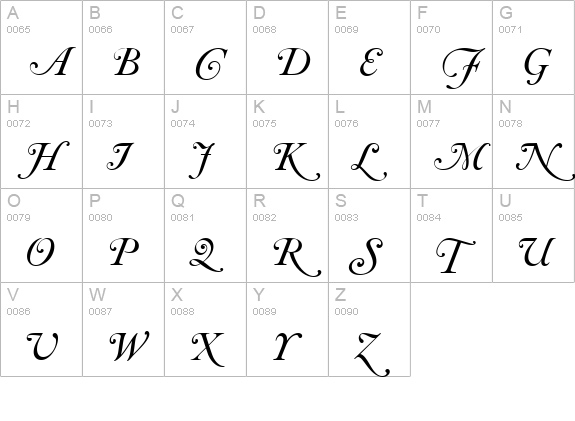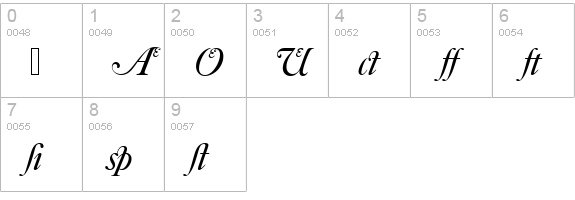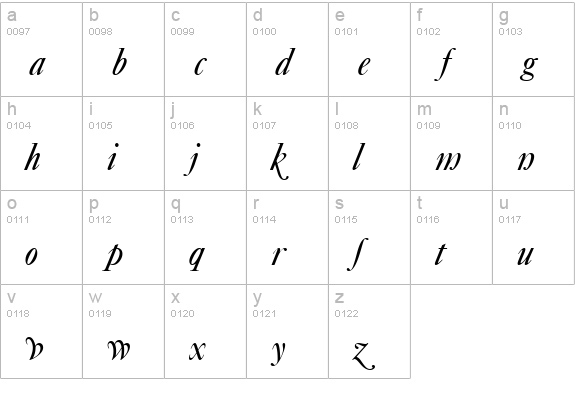
CaslonNo540SwaAltD Italic Font Details
CaslonNo540SwaAltD Italic is a distinctive, italic variant in the CaslonNo540SwaAltD typeface family \xE2\x80\x94 well suited to design and typography projects.
CaslonNo540SwaAltD Italic font is a stylish and elegant typeface that exudes sophistication and charm. Its slanted and flowing design adds a touch of flair to any project, making it perfect for headings, titles, and other decorative elements. The italicized version of this font brings a sense of dynamism and movement, making it ideal for conveying a sense of energy and excitement. The subtle curves and delicate serifs of CaslonNo540SwaAltD Italic font give it a timeless and classic appeal, while the bold strokes add a modern twist. This versatile font is suitable for a wide range of design applications, from print materials to digital projects. Best of all, CaslonNo540SwaAltD Italic font is available for free download at FontsMarket.com. This means you can easily access and use this beautiful typeface in your projects without any cost. Don't miss out on the opportunity to enhance your designs with the elegance and sophistication of CaslonNo540SwaAltD Italic font.